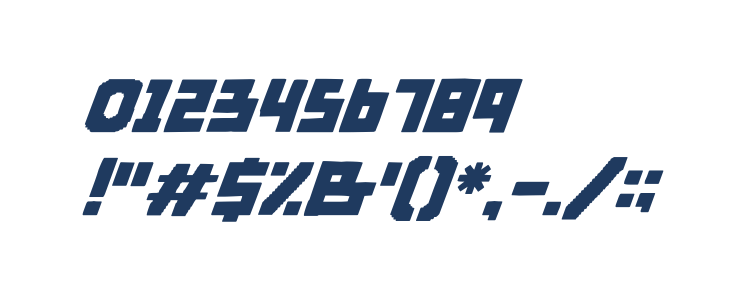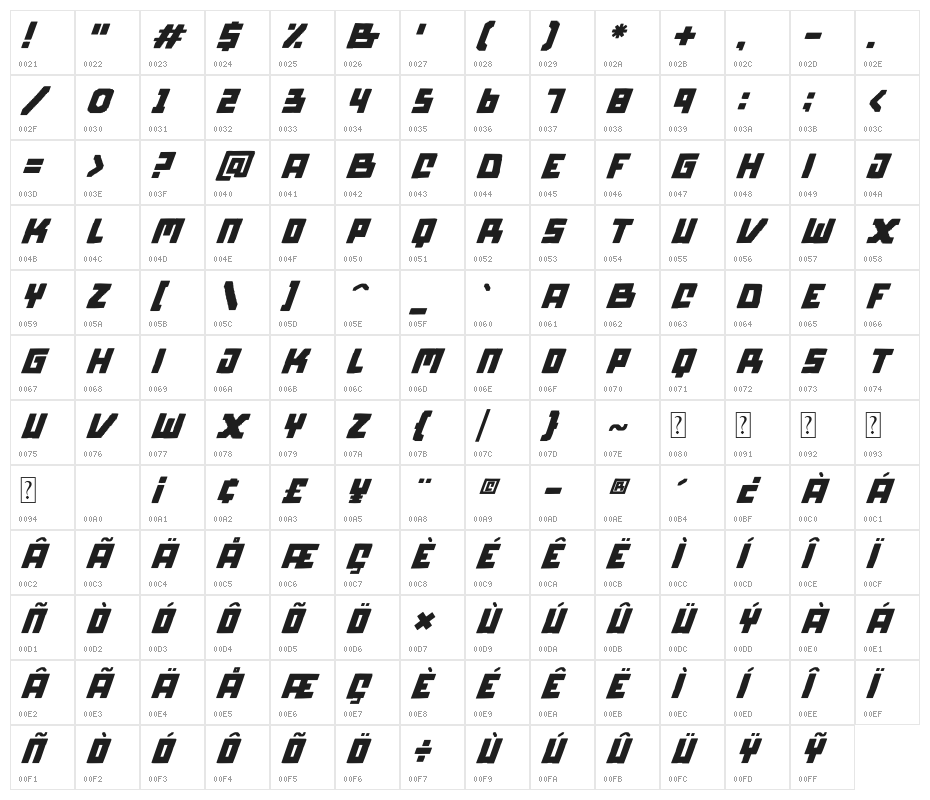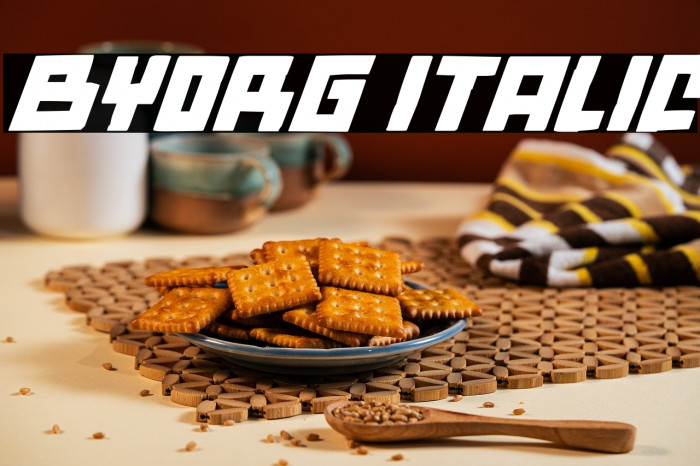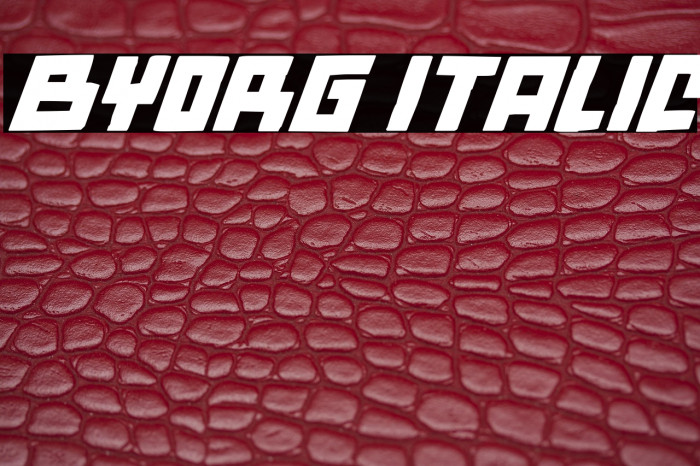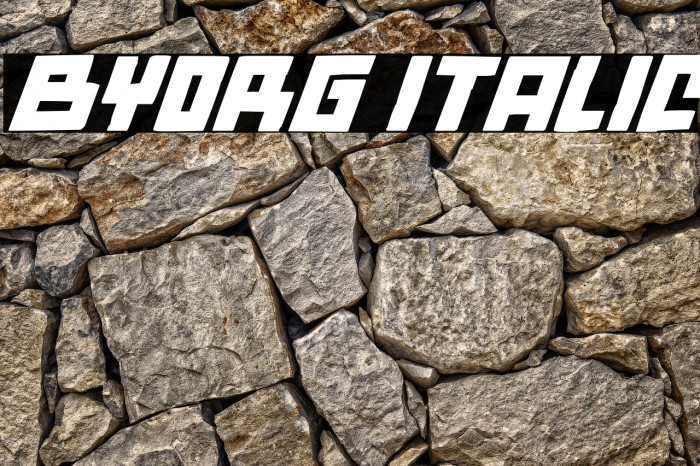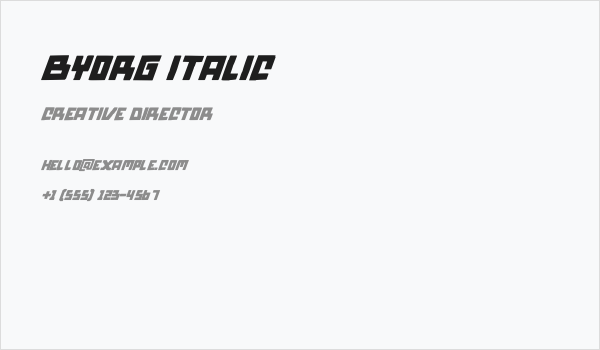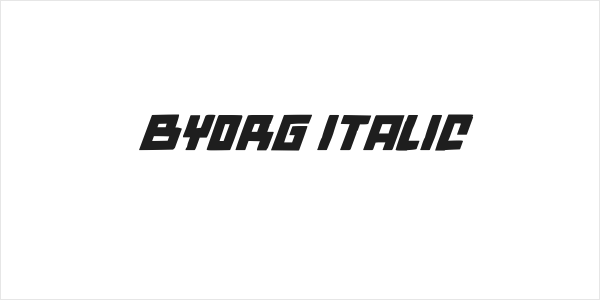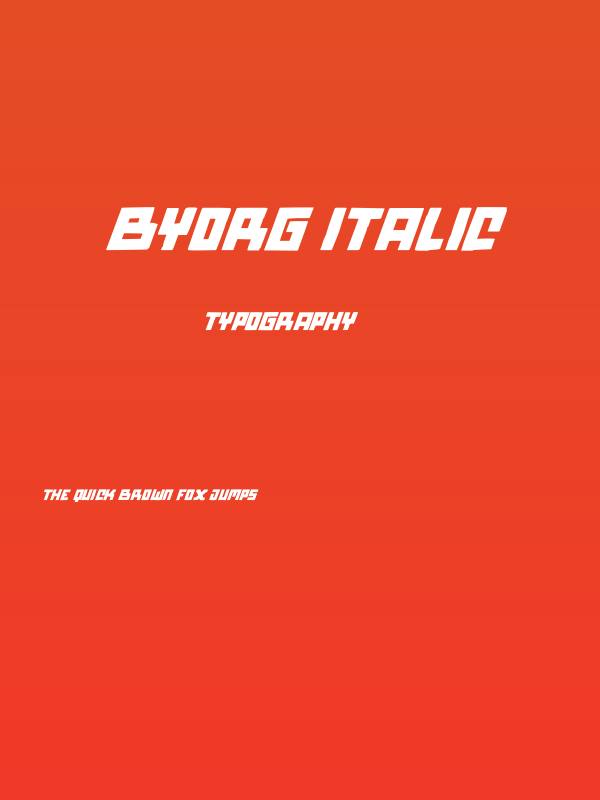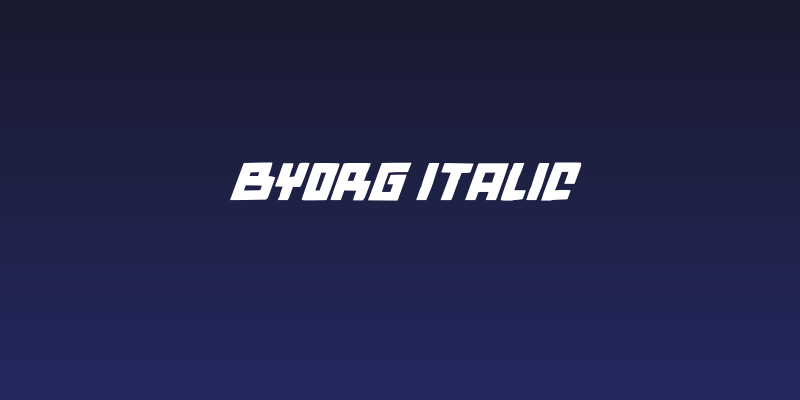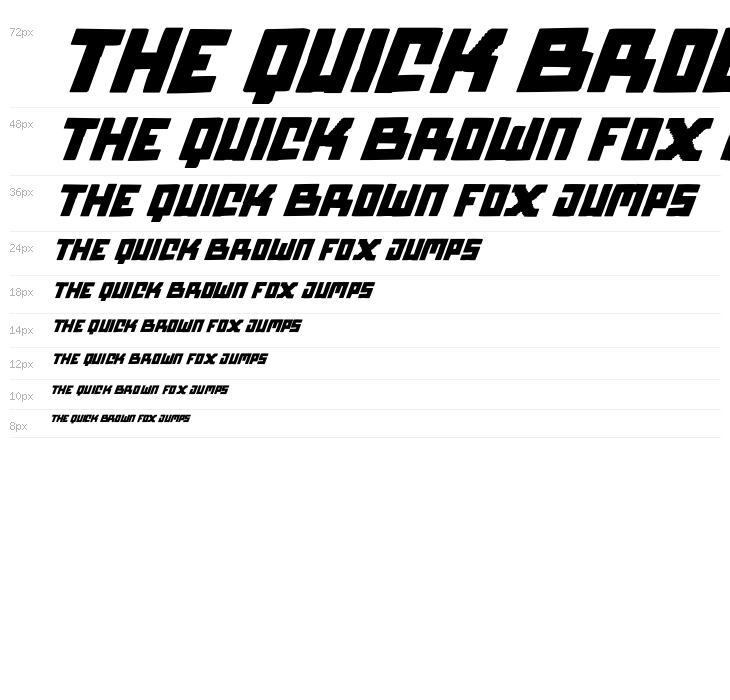
Byorg Italic Font
Byorg Italic Description
This font features a bold and dynamic italic style with a strong presence. The characters are sharply angled, giving a sense of motion and energy. The strokes are thick and consistent, providing a robust and impactful appearance. The uppercase and lowercase letters maintain a cohesive look, while the numerals and special characters complement the overall design. This font is ideal for projects that require a bold statement and a modern, edgy feel.
| Proposed Projects | Ideal for sports branding, action movie posters, dynamic logos, and modern advertising campaigns. |